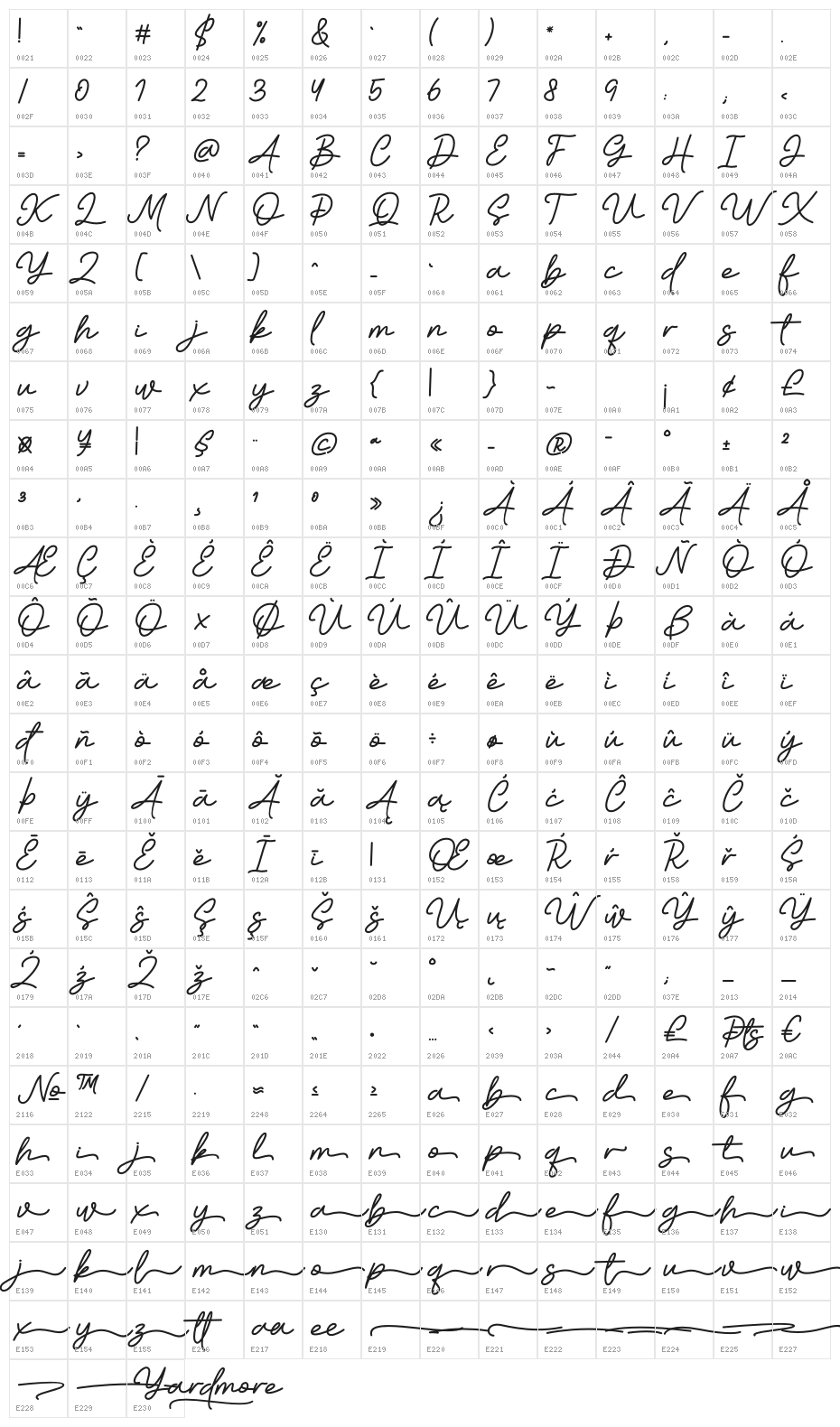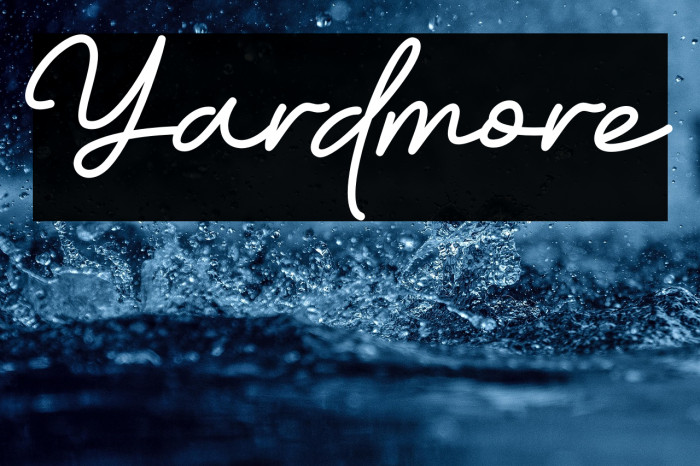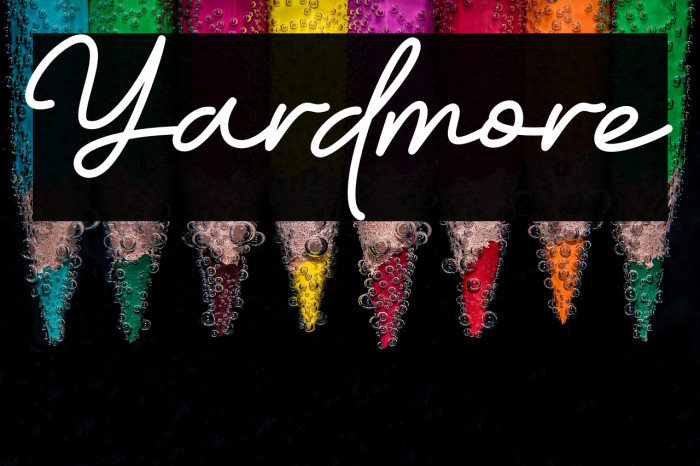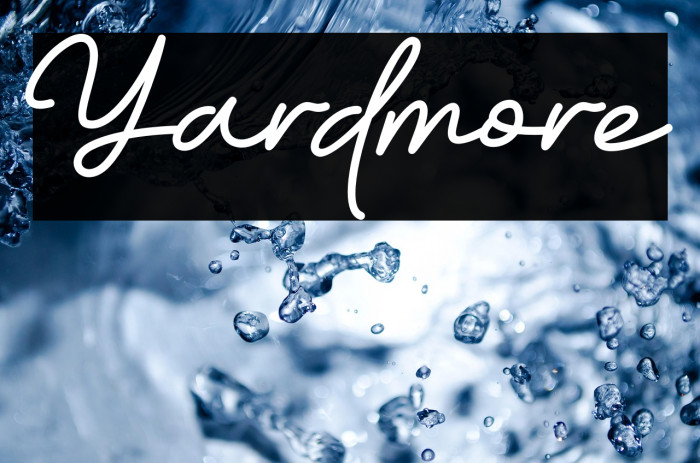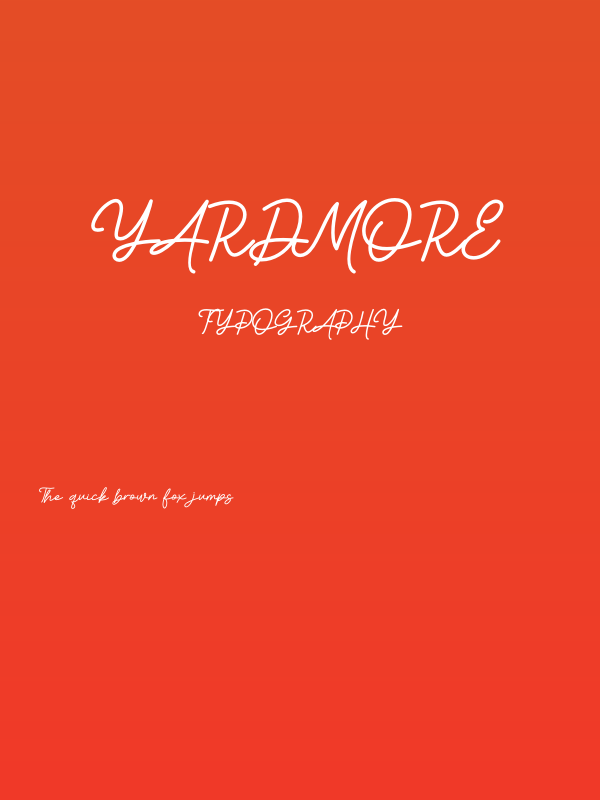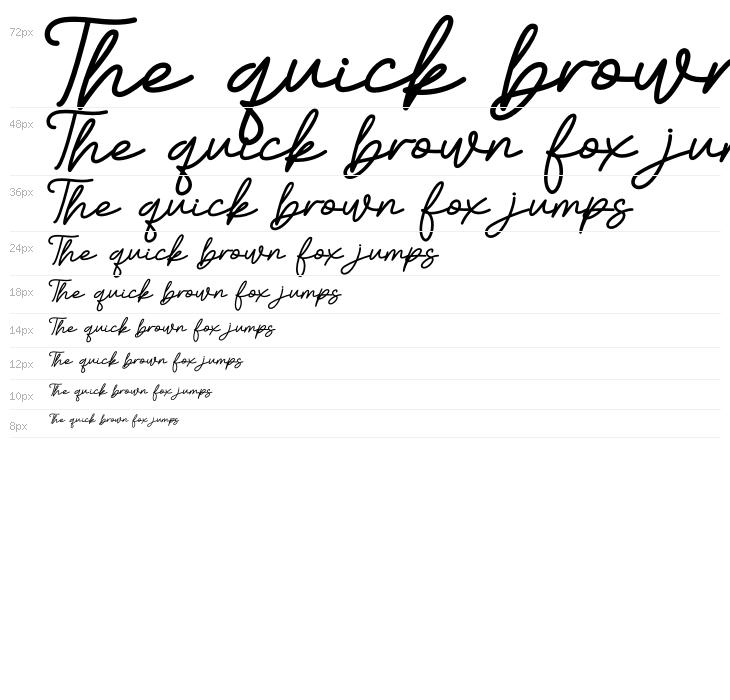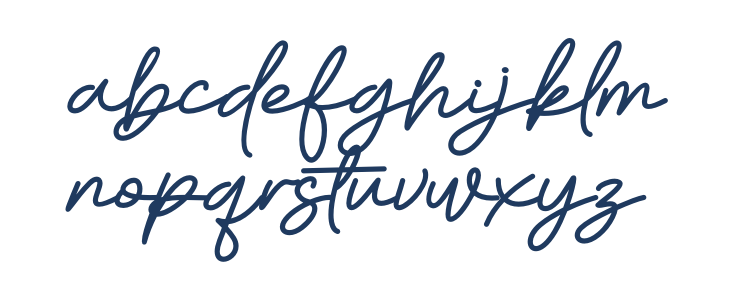
Yardmore Font
| Caso d'uso | Logos, Invitations, Artistic projects |
| Progetti proposti | Ideal for wedding invitations, personal branding, greeting cards, and artistic projects. |